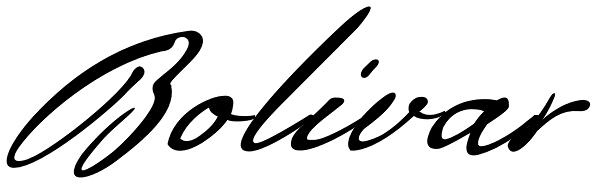
Bolívar
Bolívar is a contemporary display typeface inspired in the handwriting of one of the most prominent personalities of the Latin American 19th century: Simón Bolívar, “the liberator". The typeface intends to capture the passion of handwritten...